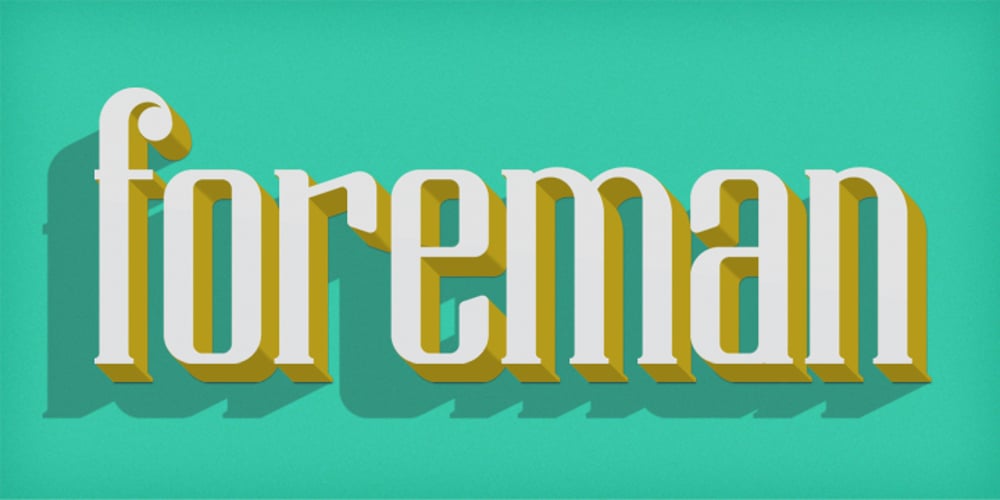
Foreman
Foreman font
Foreman Font Family was designed by Anthony Prudente and published by Anthony Prudente. Foreman contains 1 styles and family package options. This typeface is inspired from the old display fonts that used to decorate the world around us, but just because we don’t see such beautiful signage these days, doesn’t mean we should lose the great typefaces used. Foreman is a condensed serif display typeface, with hard geometric lines inspired from fonts used in the 1930s and 1940s, and very much used by the American Art Deco movement.